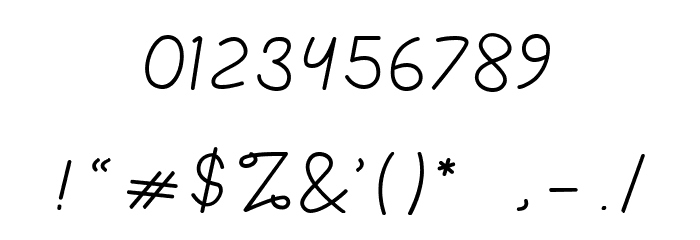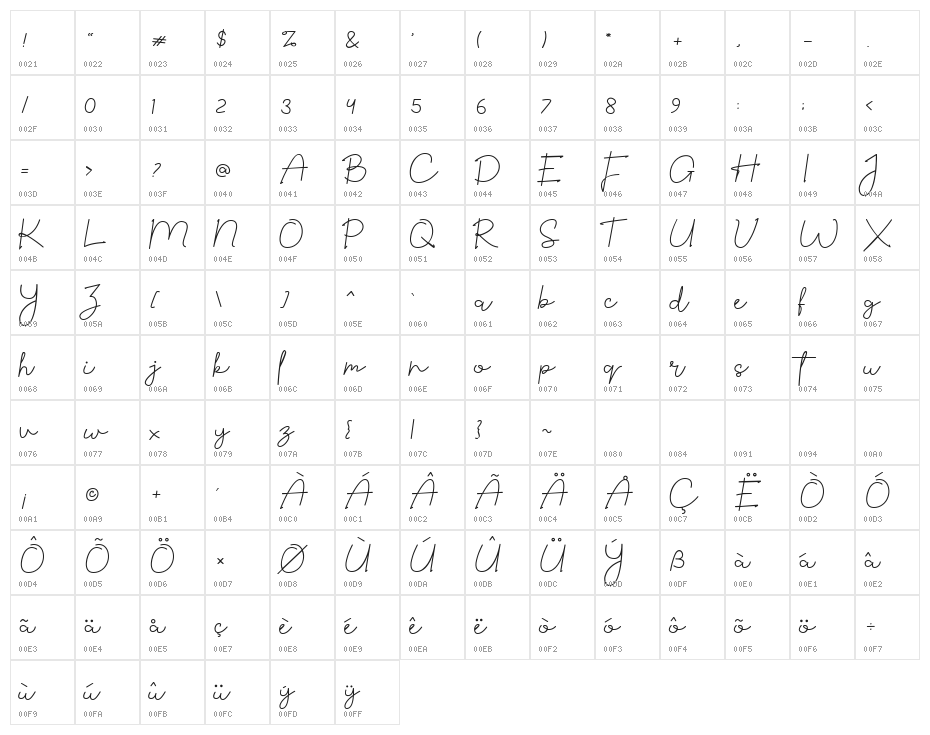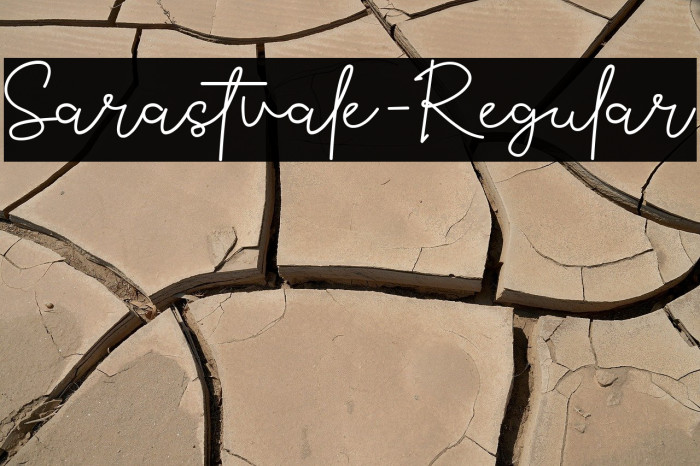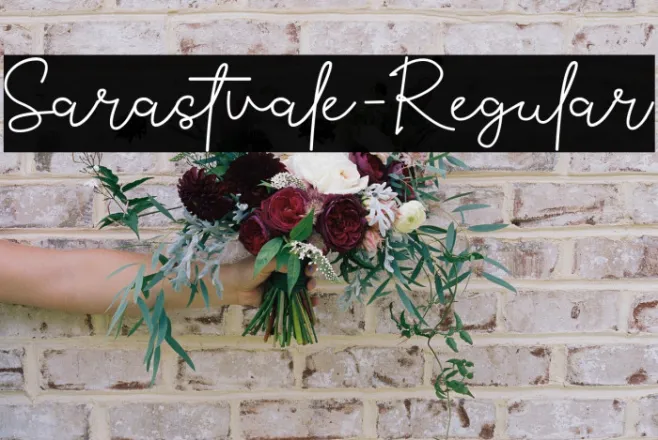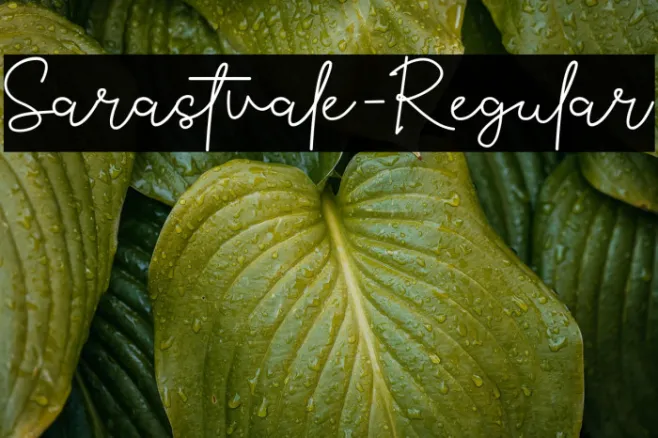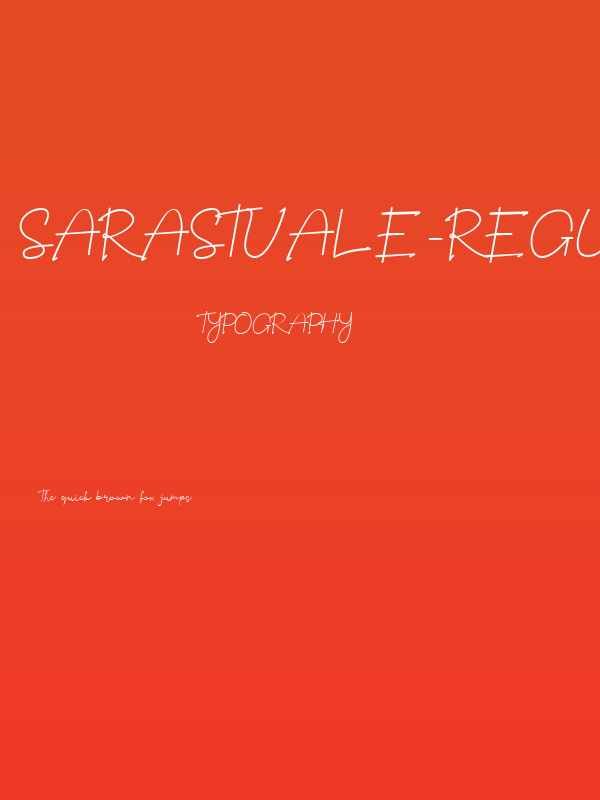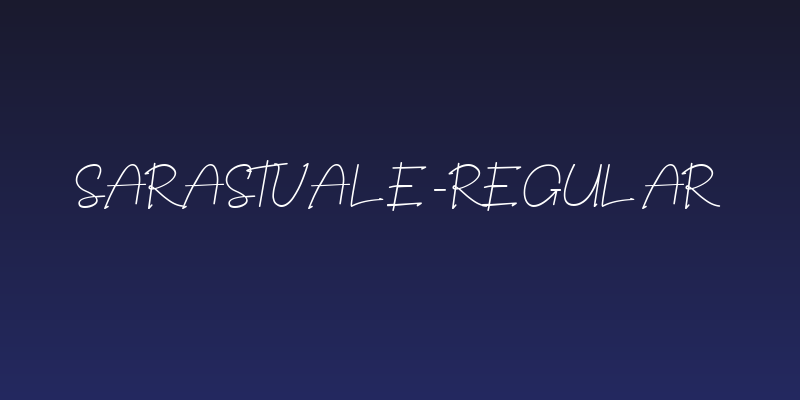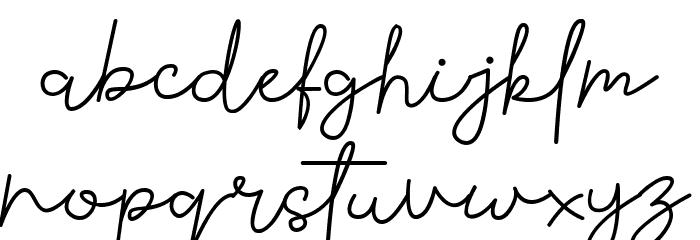
Sarastvale-Regular Font
Sarastvale-Regular Description
This font features a delicate and flowing script style, characterized by its elegant and smooth curves. The letters are interconnected in a seamless manner, giving it a handwritten appearance. The uppercase letters are slightly more structured, while the lowercase letters exhibit a more fluid and cursive nature. The numerals and special characters maintain the same graceful style, ensuring consistency throughout. This font is ideal for projects that require a personal touch or an artistic flair, such as invitations, greeting cards, or branding materials.
| Overall Style | Elegant and Artistic |
| Use Case | Headlines, Invitations, Artistic projects |
| Proposed Projects | Ideal for wedding invitations, greeting cards, personal branding, and artistic projects. |